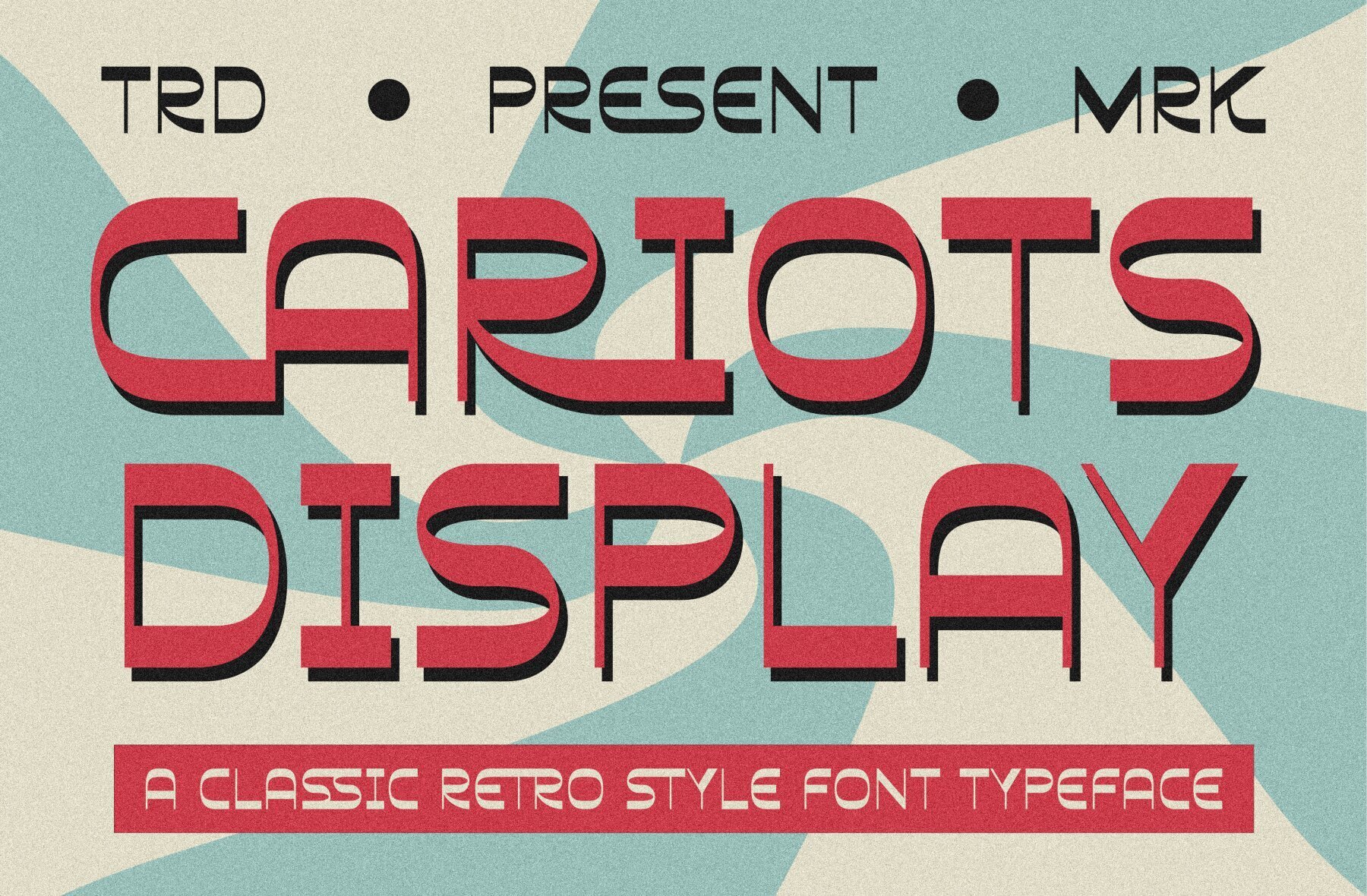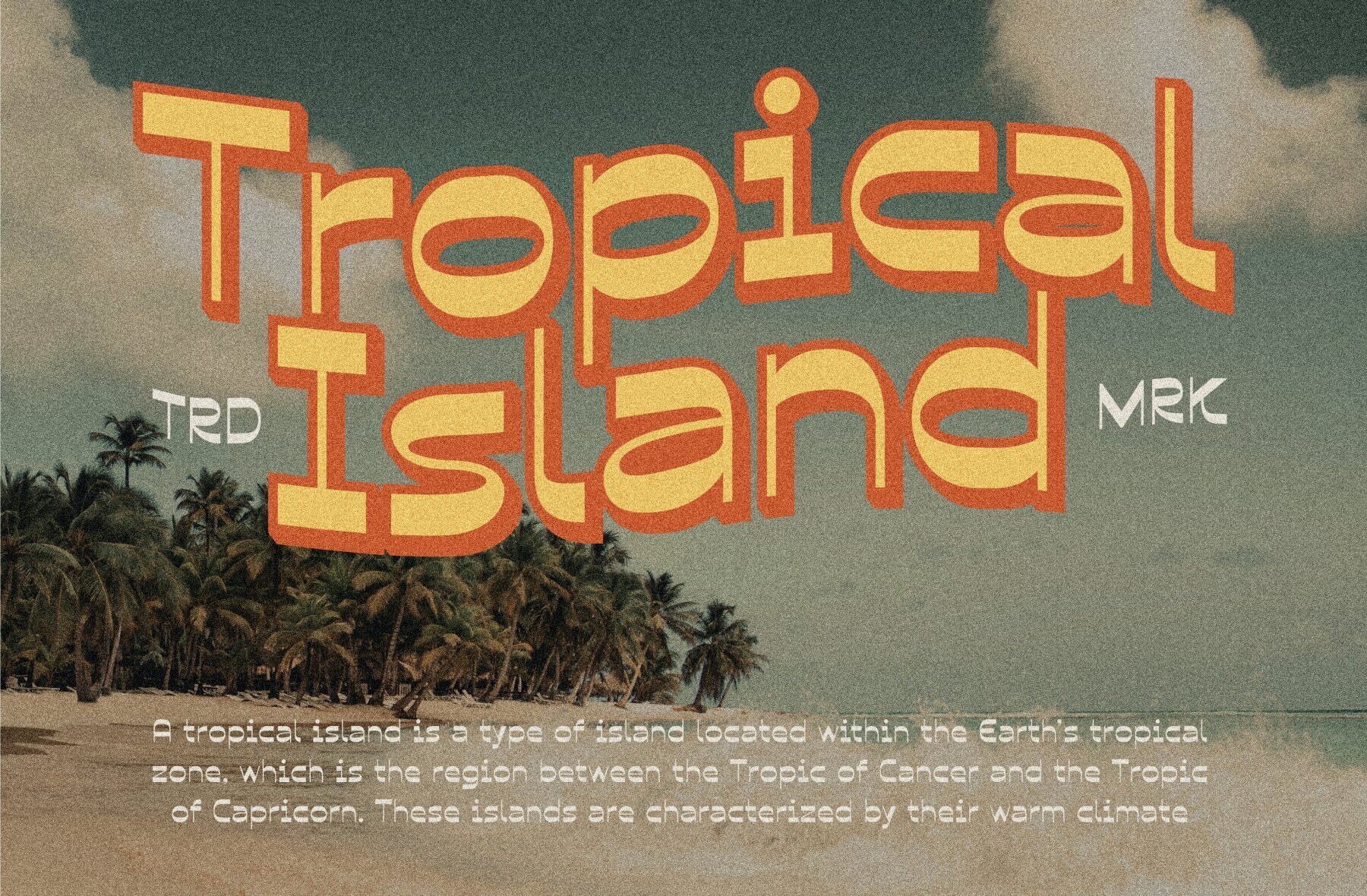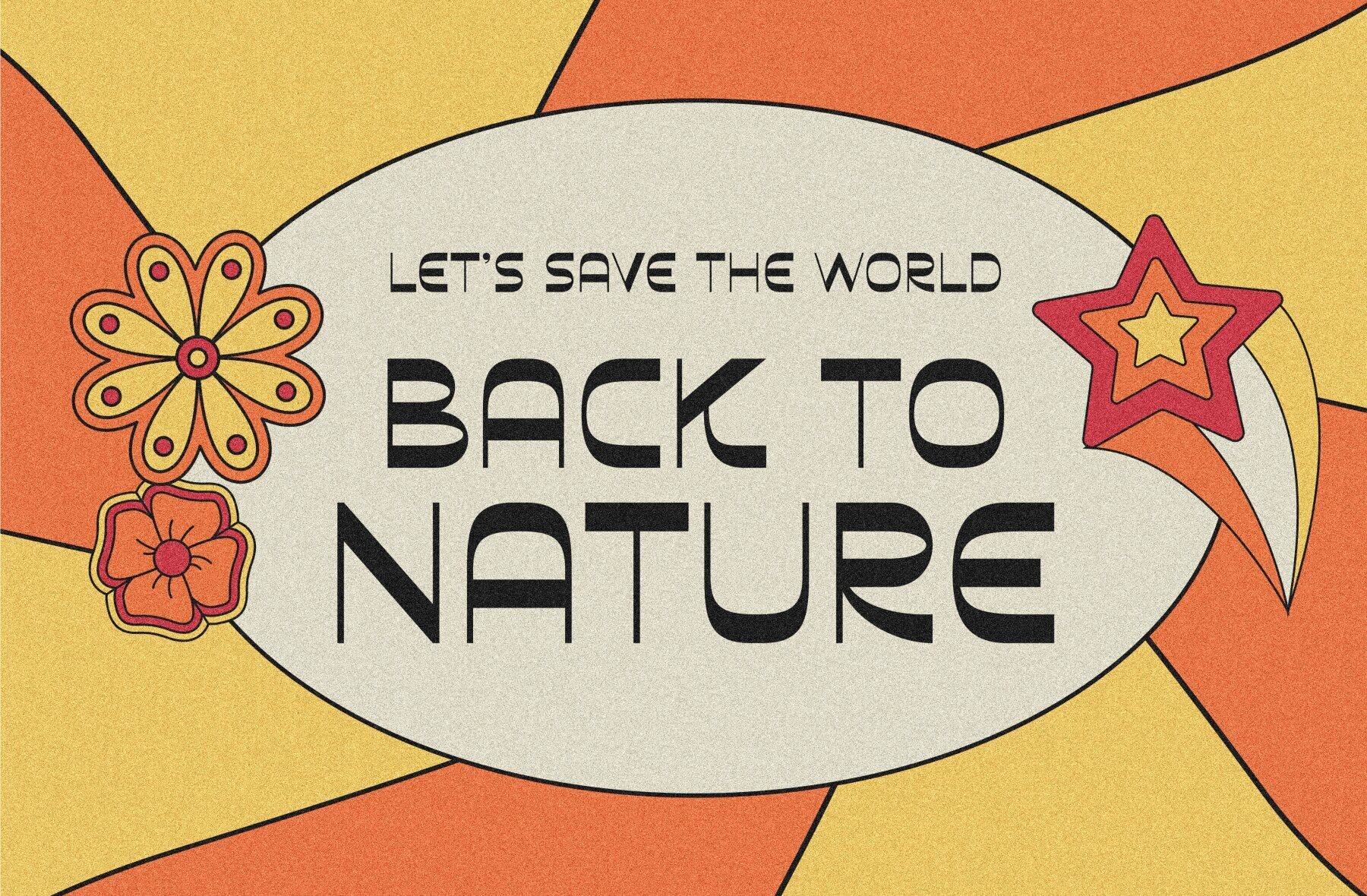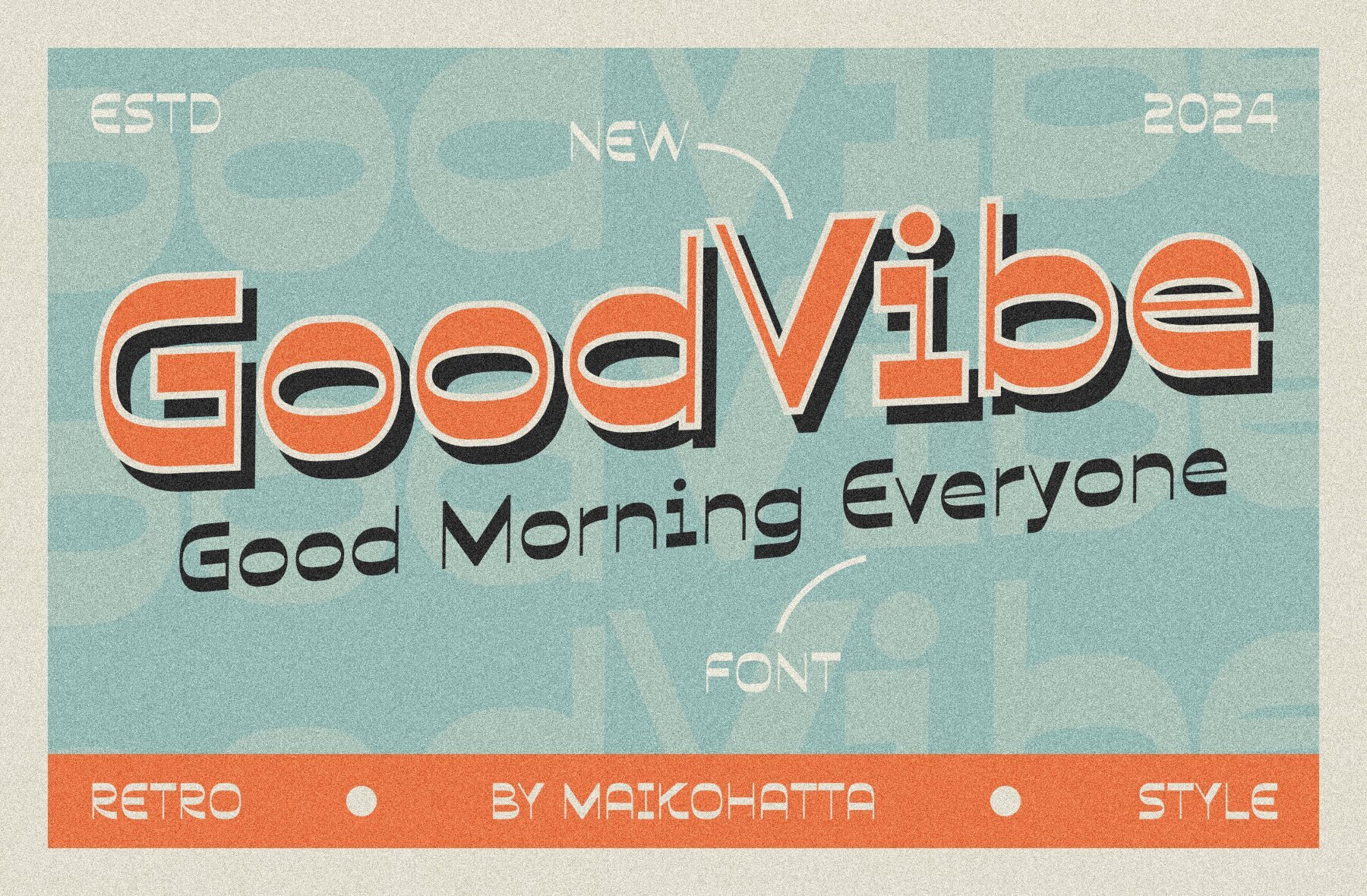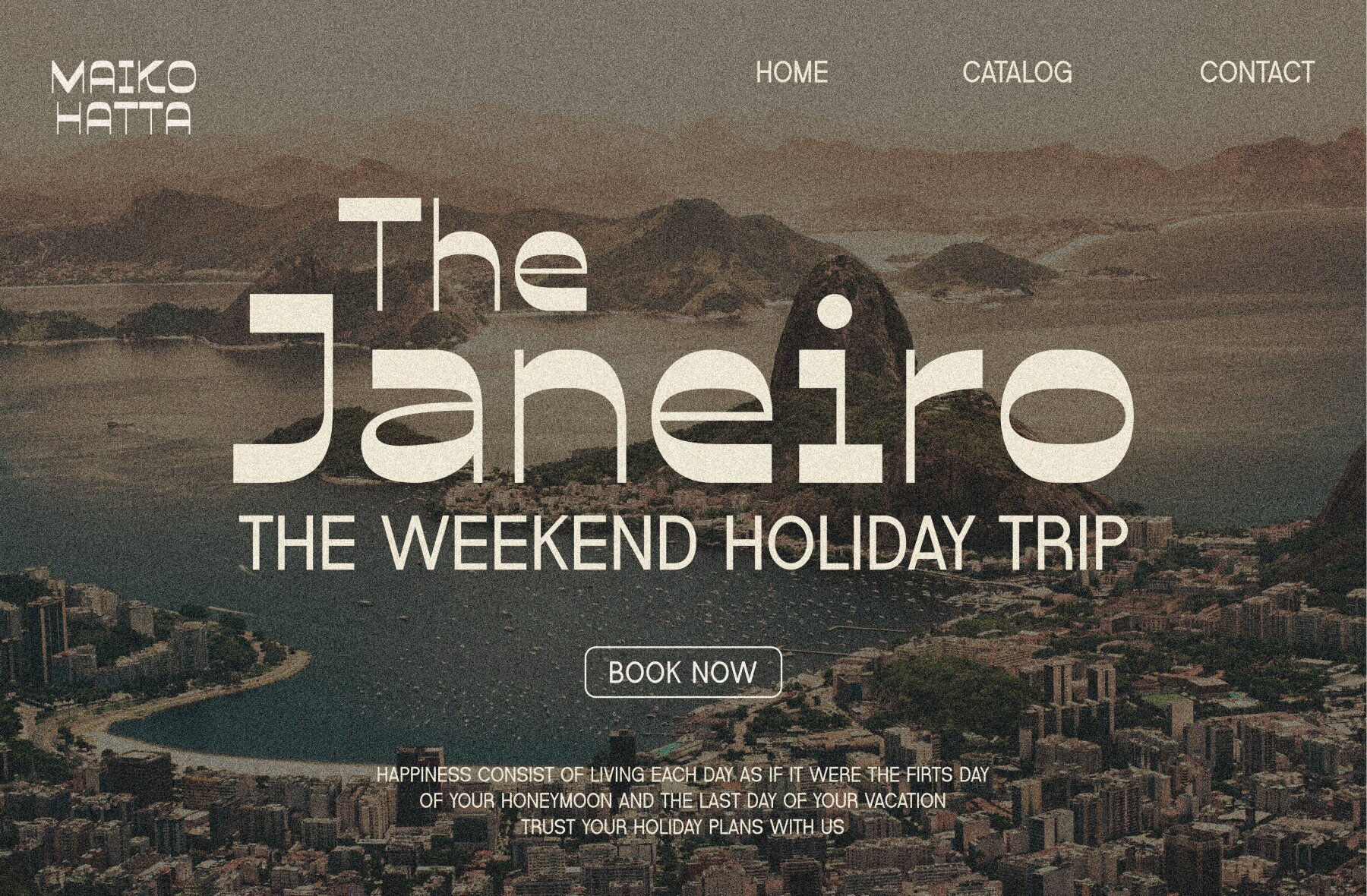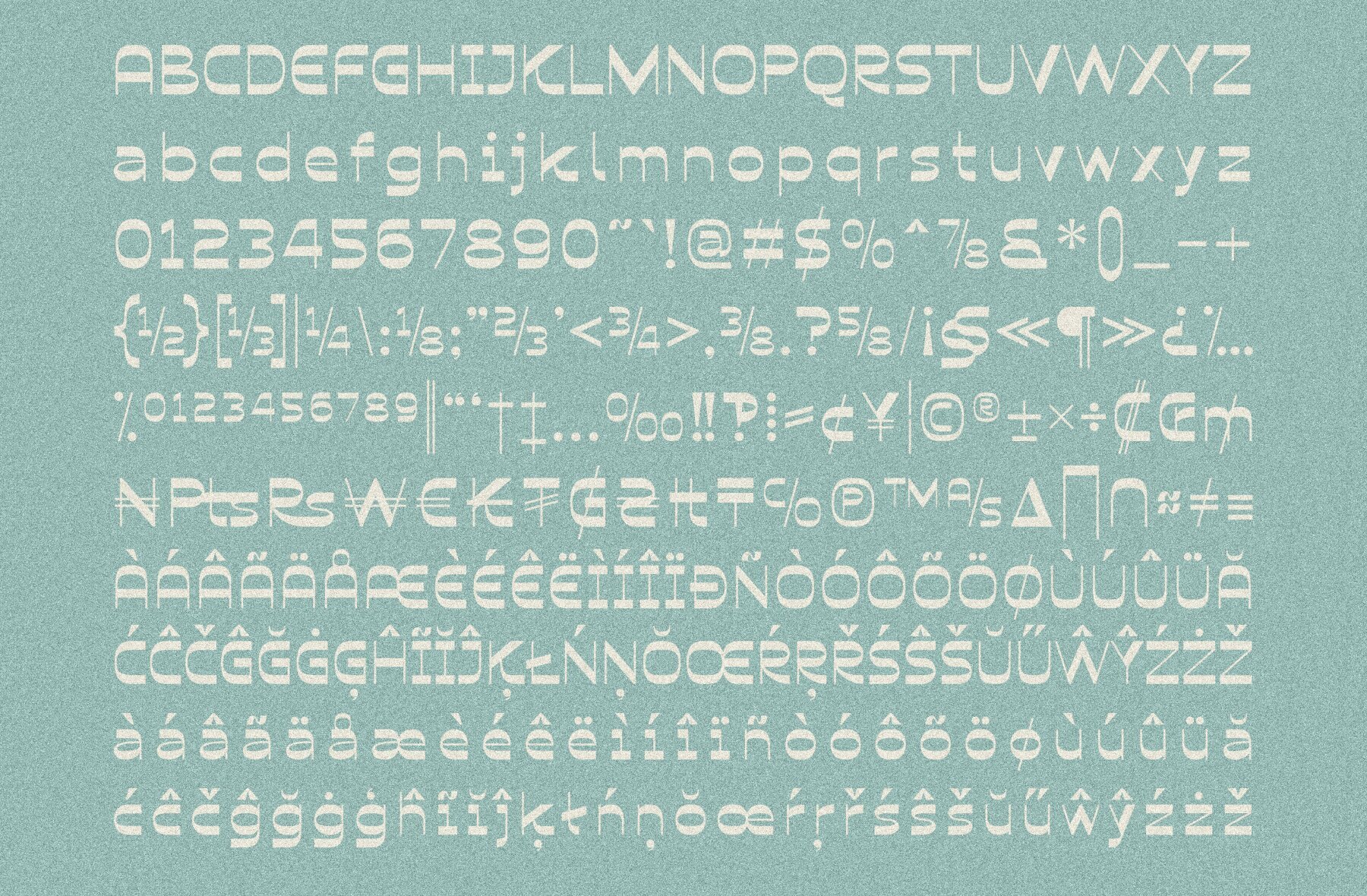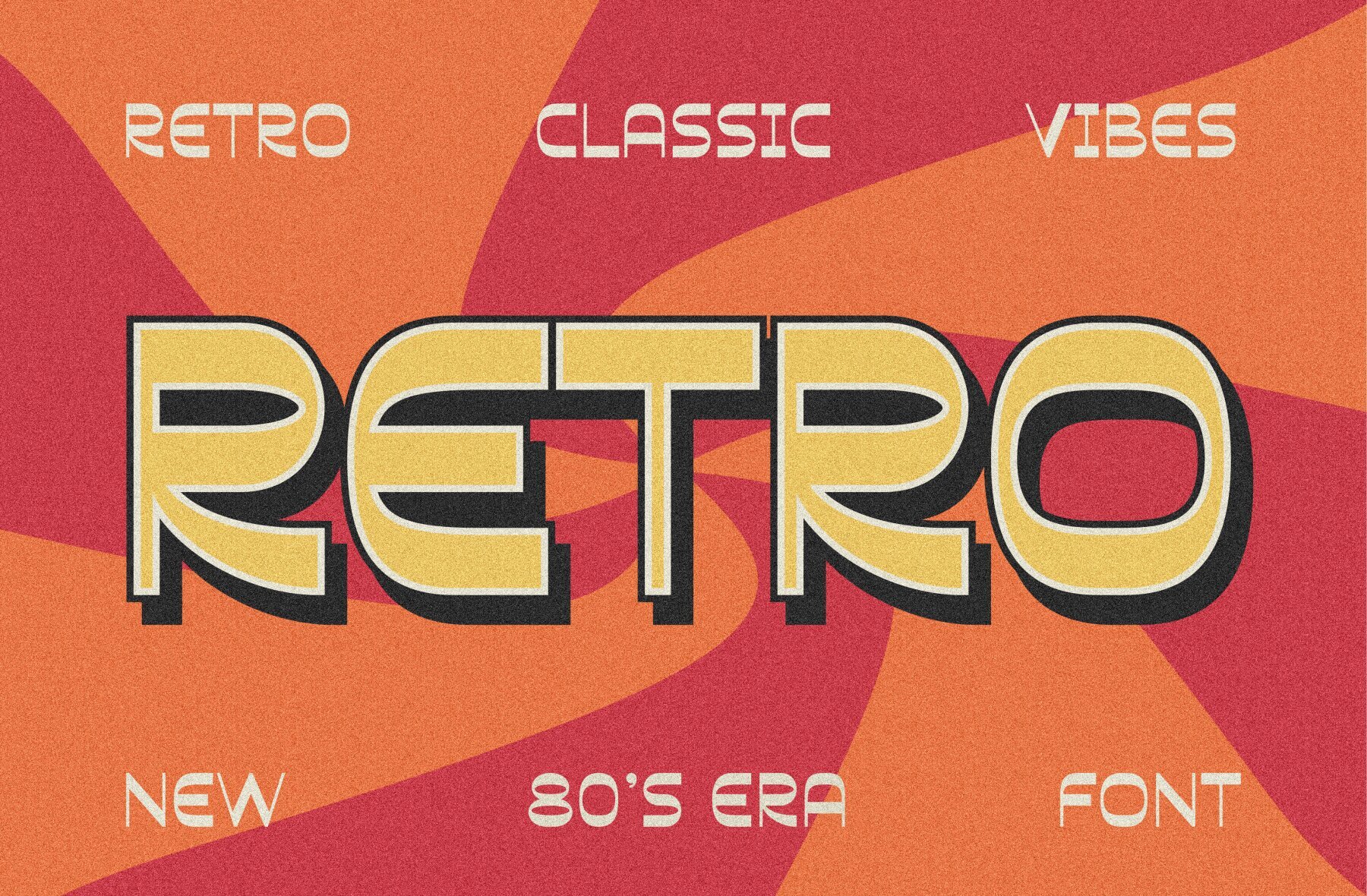
Cariots Font
Cariots Regular
Cariots is a classic retro typeface that reflects joy and cheerfulness with its handwritten style, often seen in comics or cartoons. Ideal for creating a playful and fun atmosphere, it’s perfect for poster designs, invitation cards, comics, and promotional materials targeting a younger audience or anyone seeking a lively feel. Features include uppercase, lowercase, and multilingual support.